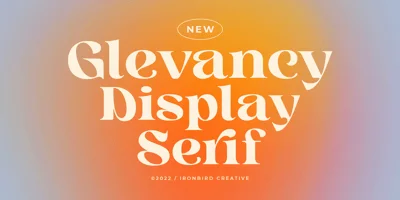
Glevancy Font
Glevancy Font is perfect for luxury jewelry branding, high-end fashion boutiques, premium cosmetics packaging, elegant wedding stationery, upscale hotel communications, sophisticated wine labels, prestigious award ceremonies, luxury real estate marketing, exclusive spa branding, fine dining restaurant menus, couture fashion shows, and premium lifestyle publications.
This font is exciting because it radiates the luminous elegance and sophisticated glamour that defines true luxury and refinement, featuring gracefully polished letterforms that shimmer with the same captivating brilliance and timeless class that distinguishes the world's most prestigious brands and exclusive experiences. The meticulously crafted character design captures both the gleaming beauty of precious metals and the sophisticated restraint that separates genuine luxury from flashy imitation, creating typography that whispers rather than shouts its premium quality. Each letter glows with the kind of understated magnificence and refined elegance that makes discerning audiences recognize authentic luxury at first glance.
The Glevancy Font family includes regular and bold weights with complete character sets featuring luxury-inspired numerals, elegant punctuation marks, and refined decorative elements that enhance the sophisticated aesthetic without overwhelming the clean, premium design. Advanced versions may offer additional stylistic variants with enhanced luminous effects, alternate characters that create flowing elegant connections, and luxury ornaments that amplify the gleaming sophistication and premium appeal.
Whether you're developing luxury brand identities, creating premium marketing materials, or designing exclusive event communications, Glevancy Font provides the gleaming sophistication and elegant luxury your project needs to attract affluent audiences and establish premium market positioning. This typeface transforms ordinary text into luminous statements that communicate exclusivity, quality, and refined taste to consumers who demand the finest experiences. The font's luxurious character makes it essential for brands targeting high-end markets and sophisticated clientele. Luxury brand strategists and premium designers will love how this font brings authentic gleaming elegance to their work with its genuinely sophisticated and luminously refined character that elevates brands to luxury status.